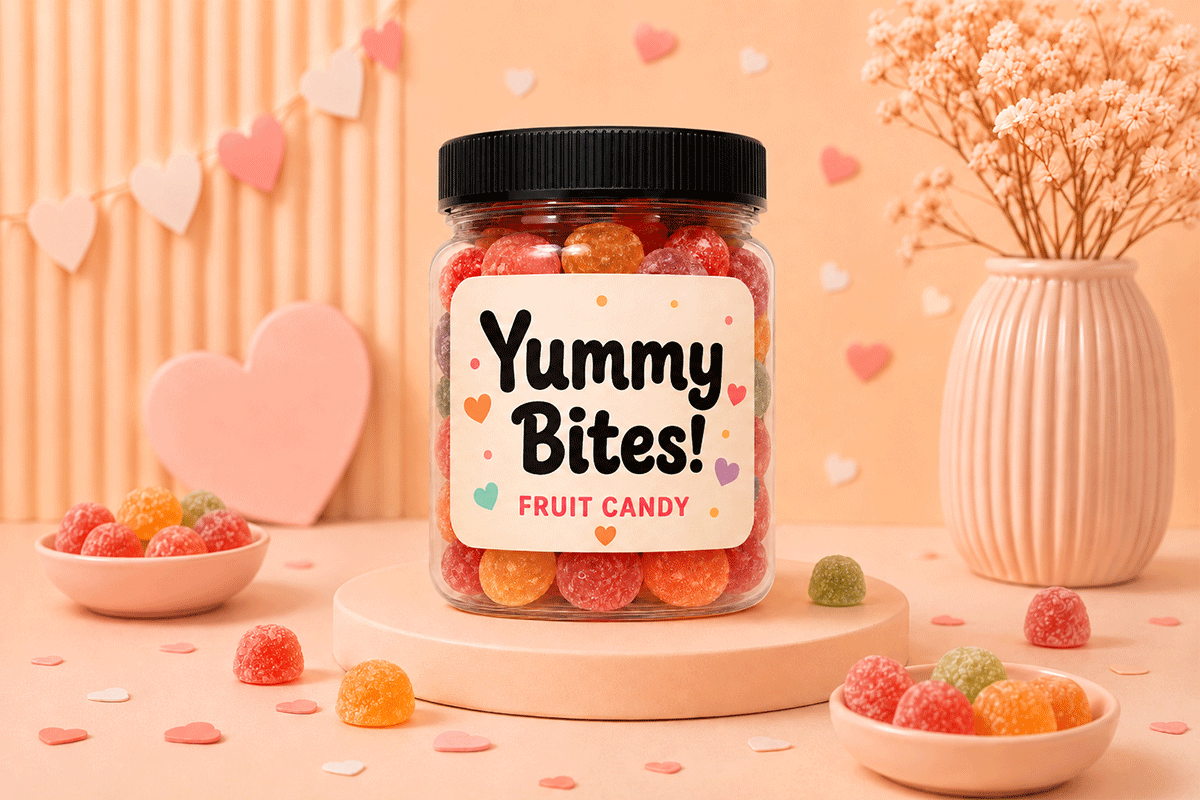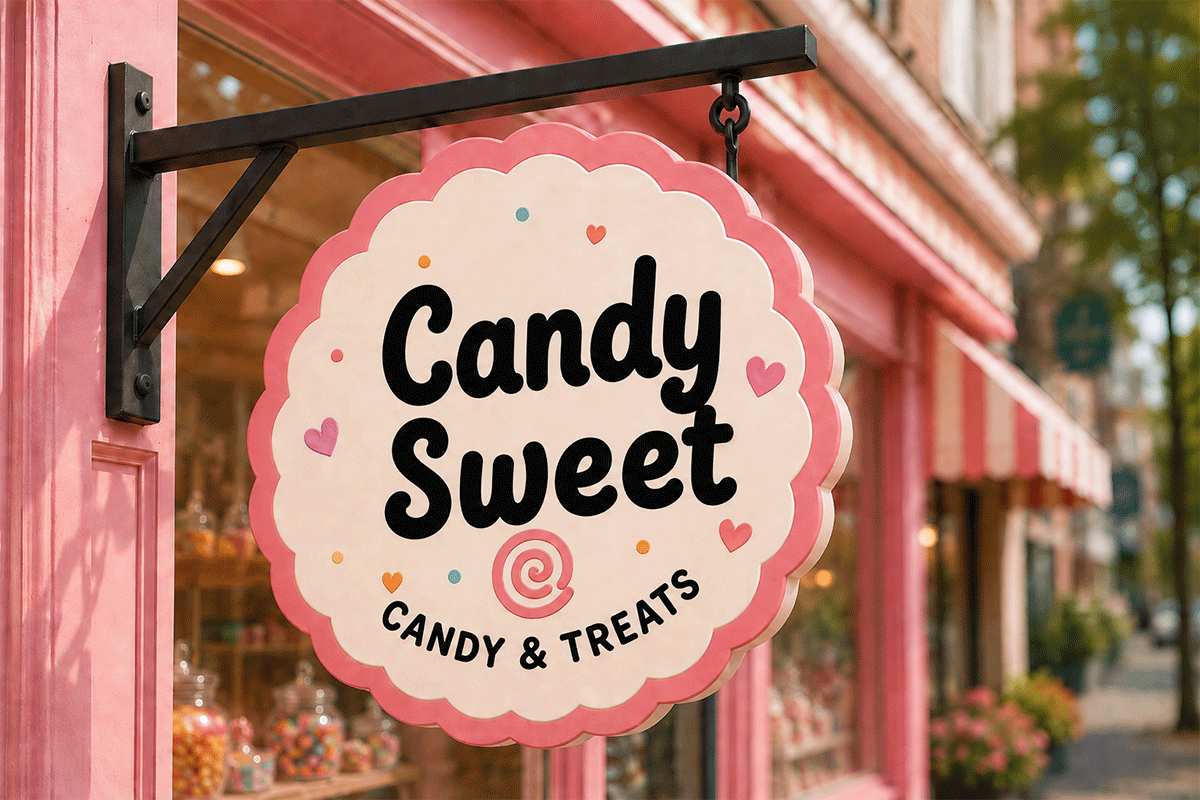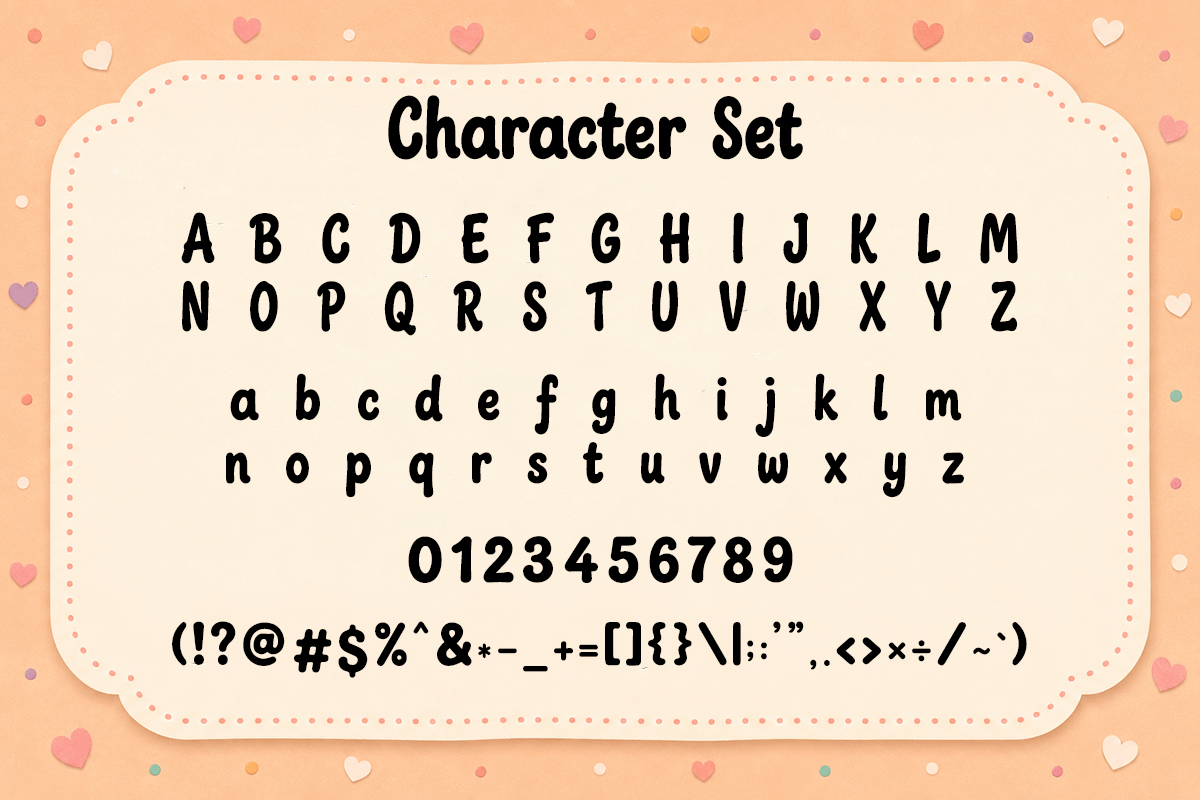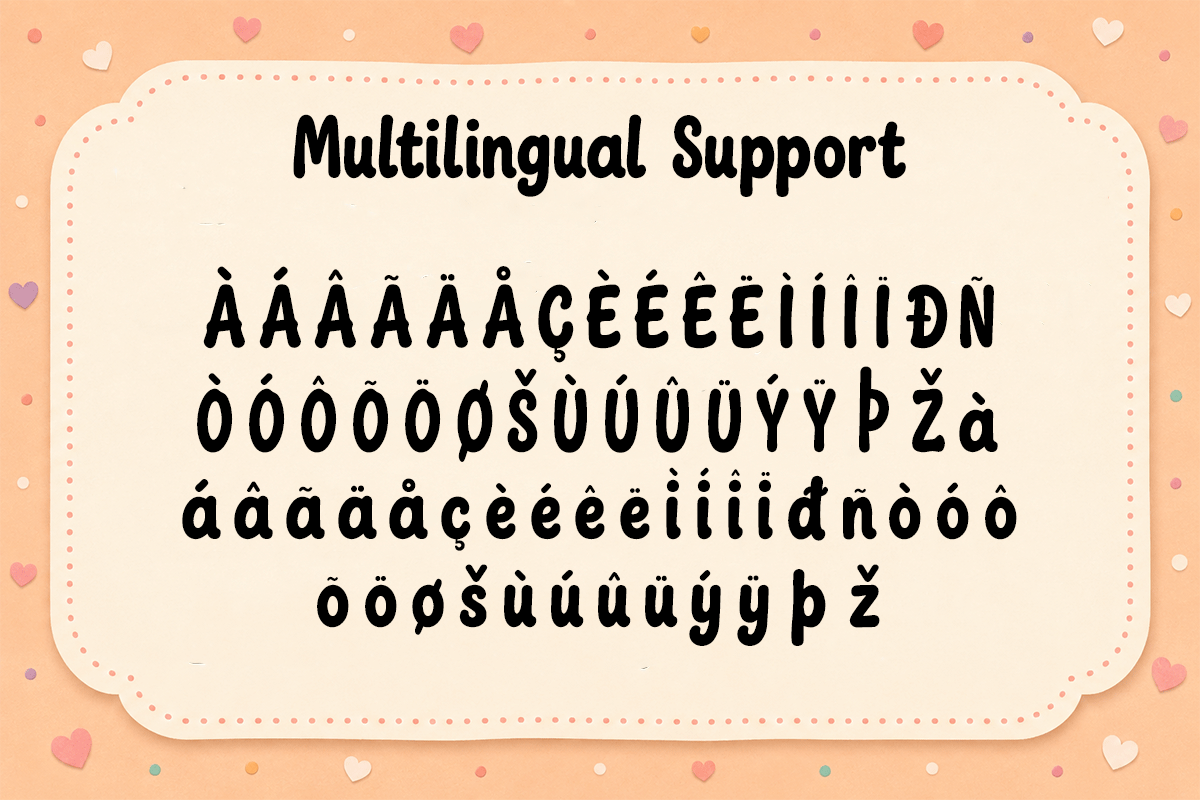
Candylicious A Modern Handwritten Kids Font is a charming and cheerful display font inspired by colorful candies, soft sweets, and playful childhood moments. With its smooth curves, rounded shapes, and friendly personality, this font brings a warm, fun, and delightful feeling to every design.
Its cute and eye-catching style makes Candylicious A Modern Handwritten Kids Font perfect for projects that need a sweet, joyful, and playful touch. Whether you are creating branding, packaging, posters, invitations, or social media graphics, this font helps your message feel more friendly and memorable. Our collection of Espot & Futuristic fonts is compatible to use as Figma fonts, Canva fonts, Freepik Fonts, and Adobe Fonts]. They also work as Windows Fonts, and Apple Fonts. For your social media needs, you can use and install fonts in our collection of Espot & Futuristic fonts to use as Instagram Fonts, Facebook Fonts, and Twitter Fonts.For our customers, we provide a collection of The Best display & E-sport Futuristic StyleFonts, each with its own unique styles and characteristics, so that our customers can create any design they want. We know what our clients love! That is why we prepare everything you may need in one simple downloadable package for you. Our easy-to-grab package contains all of the files you will ever need to create beautiful typography!